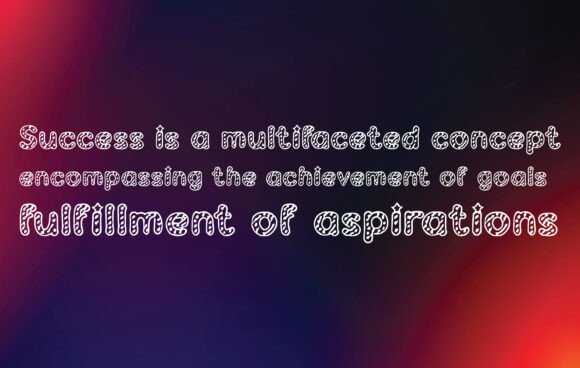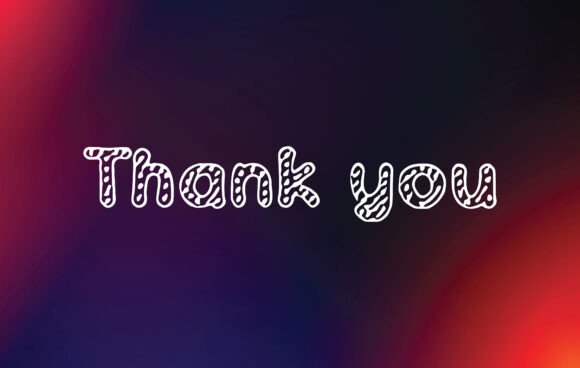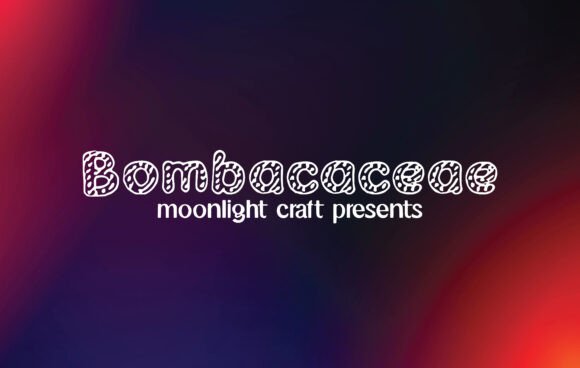
Bombacaceae Font: Elevate Your Creative Projects with Style and Versatility
In the world of typography, finding the perfect font that combines style, versatility, and readability can be a daunting task. However, if you’re looking for a go-to favorite that can elevate any creative project, look no further than the Bombacaceae Font. This beautifully crafted font is designed to offer the perfect blend of style and versatility, making it an essential addition to your collection.
What Makes Bombacaceae Font Stand Out?
Bombacaceae Font is more than just a typeface; it’s a tool that can transform your creative projects. Here are some of its standout features:
• Easy to Read: One of the key benefits of Bombacaceae Font is its exceptional readability. Whether you’re using it for titles or body text, this font ensures that your message is conveyed clearly and effectively.
• Versatile: From magazine headlines to t-shirts, social media posts to branding materials, wedding invitations to greeting cards, Bombacaceae Font fits seamlessly into any project. Its versatility makes it a valuable asset for designers and crafters who work on a wide range of projects.
• Stylish: With its unique and elegant design, Bombacaceae Font adds a touch of sophistication to any project. Its stylish appearance makes it perfect for projects where you want to make a lasting impression.
Applications of Bombacaceae Font
The versatility of Bombacaceae Font means it can be used in a variety of applications. Here are some of the ways you can use this font to elevate your projects:
• Magazine Headlines: Create eye-catching headlines that grab the reader’s attention with Bombacaceae Font. Its stylish and bold appearance makes it perfect for magazine covers, articles, and features.
• T-Shirts and Merchandise: Design custom t-shirts, hoodies, and other merchandise with Bombacaceae Font. Its clear and stylish appearance ensures that your designs look great on any product.
• Social Media Posts: Stand out on social media with Bombacaceae Font. Use it to create engaging posts, stories, and graphics that capture the attention of your audience.
• Branding Materials: Establish a strong brand identity with Bombacaceae Font. Use it for logos, business cards, brochures, and other branding materials to create a cohesive and professional look.
• Wedding Invitations and Greeting Cards: Add a touch of elegance to your wedding invitations and greeting cards with Bombacaceae Font. Its stylish and sophisticated appearance makes it perfect for special occasions.
Why Choose Bombacaceae Font?
With so many fonts available, why should you choose Bombacaceae Font? Here are some compelling reasons:
• Unique Design: Bombacaceae Font features a unique design that sets it apart from other fonts. Its elegant and stylish appearance makes it a standout choice for any project.
• High-Quality: This font is crafted with high-quality and attention to detail, ensuring that it looks great in any project.
• Versatile: As mentioned earlier, Bombacaceae Font is incredibly versatile, making it suitable for a wide range of projects and applications.
In conclusion, Bombacaceae Font is a valuable addition to any designer’s or crafter’s collection. Its unique blend of style, versatility, and readability makes it the perfect choice for a wide range of projects. Whether you’re working on magazine headlines, t-shirts, social media posts, branding materials, wedding invitations, or greeting cards, Bombacaceae Font is sure to elevate your creative projects and help you achieve your design goals.